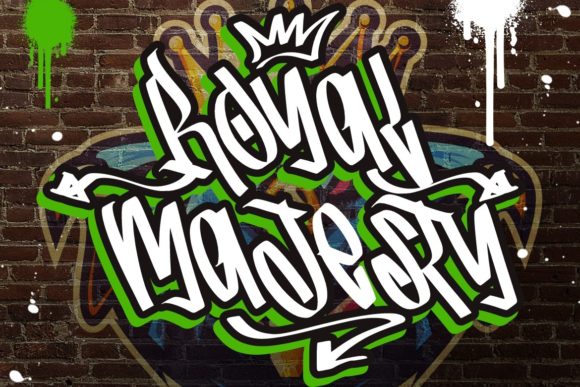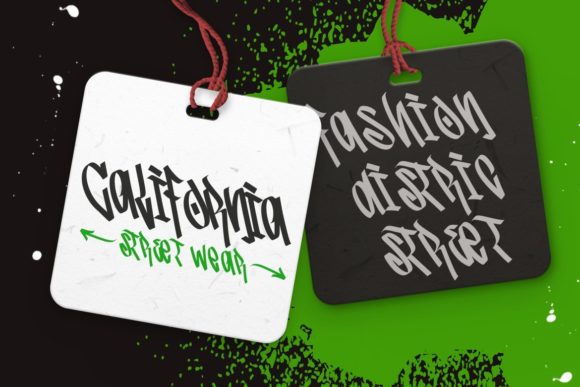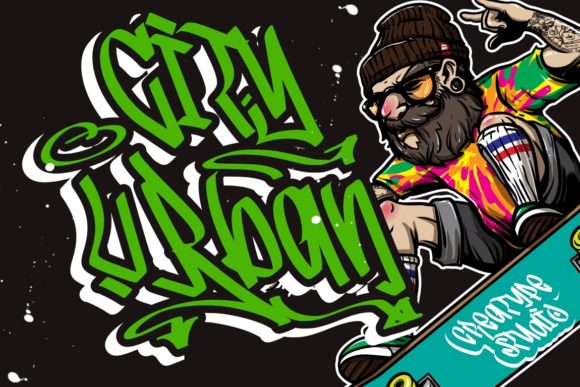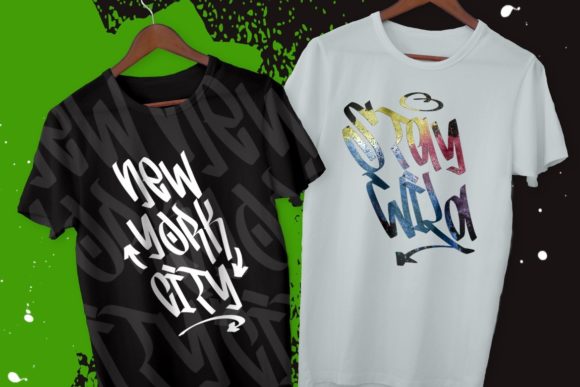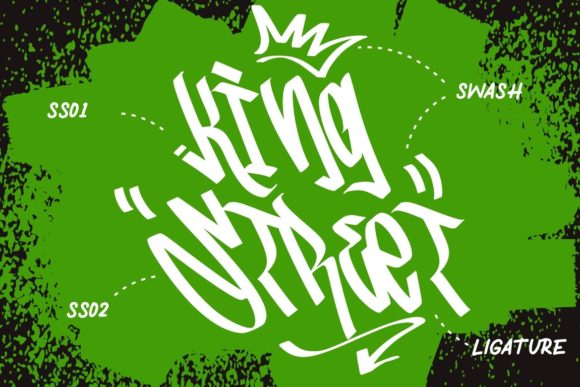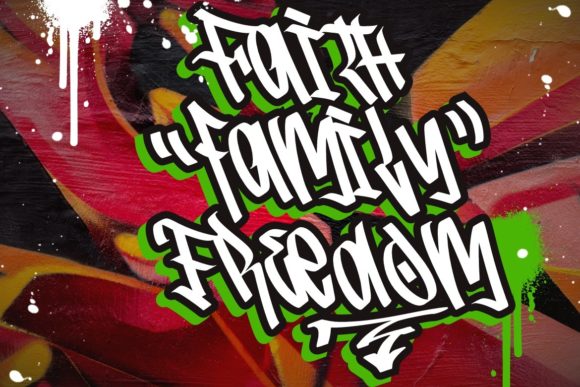
Unleash Your Creativity with Graffity Stylish Font: The Ultimate Graffiti Street Style Font
Are you a designer, craftsperson, or artist looking for a font that can add a touch of urban grit and style to your projects? Look no further than Graffity Stylish Font, the perfect graffiti street style font for creating marvelous mural effect creations. In this article, we’ll dive into the world of Graffity Stylish, exploring its features, uses, and benefits for designers and crafters alike.
What is Graffity Stylish Font?
Graffity Stylish Font is a unique and stylish font designed to capture the essence of graffiti street art. With its bold, edgy, and artistic vibe, this font is perfect for creating eye-catching designs that demand attention. Whether you’re working on branding projects, logos, social media posts, advertisements, product packaging, product designs, labels, or more, Graffity Stylish Font is the ideal choice.
Key Features of Graffity Stylish Font
- Graffiti Street Style: Graffity Stylish Font boasts a genuine graffiti street style that’s sure to add an urban touch to your designs.
- Mural Effect Creations: This font is perfect for creating stunning mural effect designs that will leave a lasting impression.
- Versatility: Graffity Stylish Font can be used for a wide range of projects, from branding and logos to social media posts and product packaging.
Benefits of Using Graffity Stylish Font
So, why choose Graffity Stylish Font for your design projects? Here are just a few benefits:
- Adds an Urban Touch: Graffity Stylish Font brings a unique and stylish urban vibe to your designs, setting them apart from the crowd.
- Increases Visibility: The bold and eye-catching nature of this font ensures that your designs will grab attention and leave a lasting impression.
- Enhances Creativity: With Graffity Stylish Font, you can unleash your creativity and experiment with new and innovative design ideas.
- Perfect for Branding: This font is ideal for branding projects, helping you to create a strong and recognizable visual identity.
How to Use Graffity Stylish Font
- Experiment with Different Sizes: Graffity Stylish Font looks great in a variety of sizes, from small and subtle to large and bold.
- Play with Colors: This font looks amazing in a range of colors, so don’t be afraid to experiment and find the perfect hue for your design.
- Combine with Other Fonts: Graffity Stylish Font pairs well with other fonts, so feel free to get creative and combine it with your favorite typefaces.